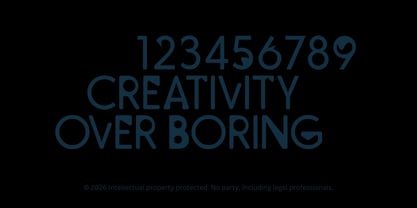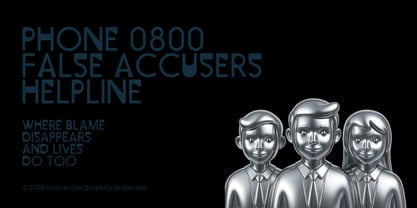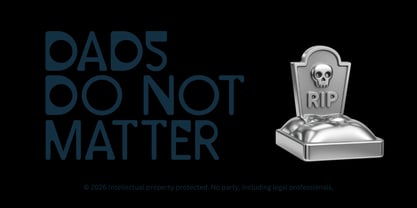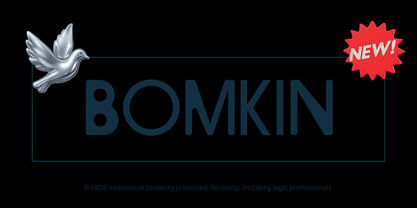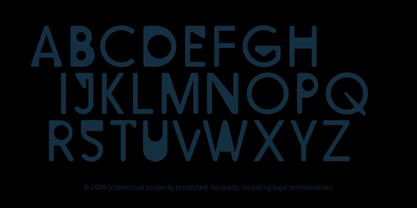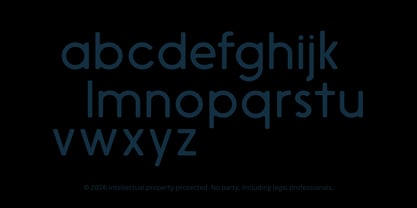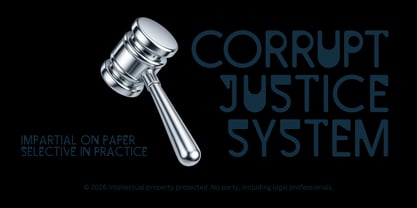
Bomkin
by HyperFluro
Bomkin is an experimental sans serif display typeface designed to break away from uniform, overused modern typography. Built on the clarity and simplicity of sans serif design, it introduces expressive forms and subtle irregularities to create bold, distinctive visuals.
Made for brands and creators who want more than safe design, Bomkin delivers impact, personality, and a sharper visual voice.